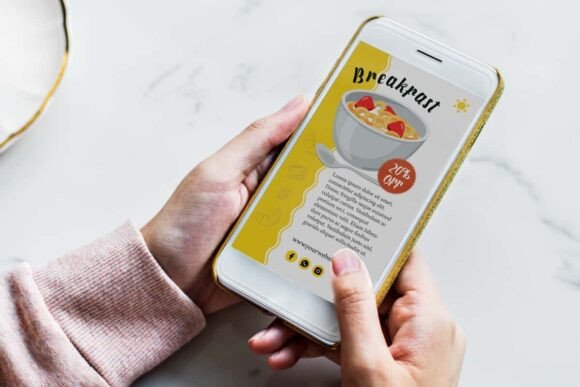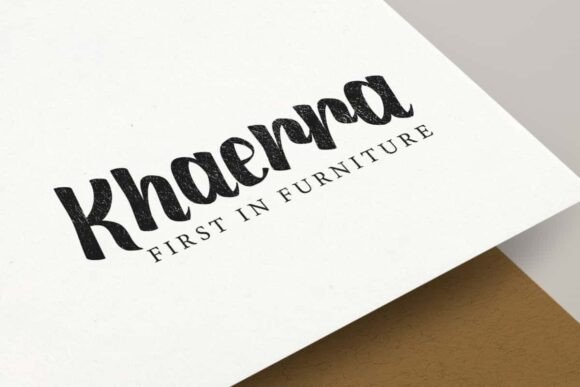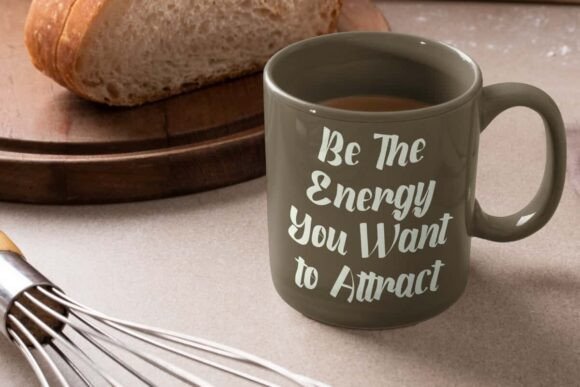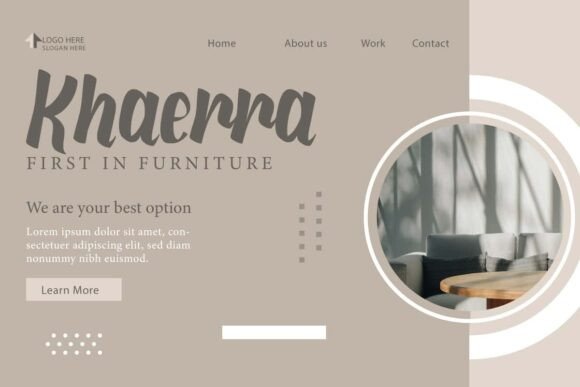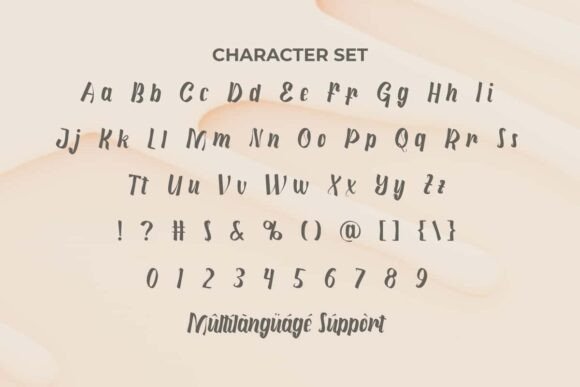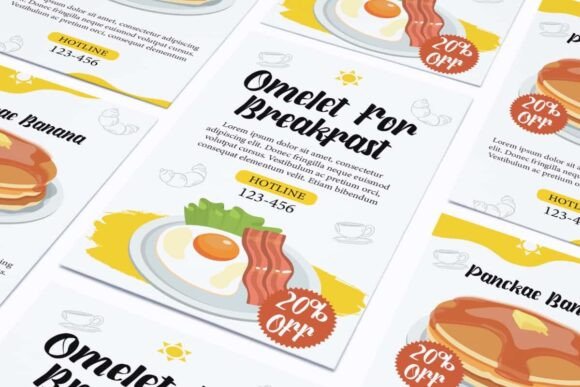
Cinnamon Butter Font: The Sweetest Addition to Your Design Collection
Are you tired of using the same old fonts in your designs? Look no further! Cinnamon Butter Font is a deliciously beautiful calligraphic font that is sure to add a touch of warmth and personality to any project. Created by CalligraphyFonts.Net, this modern calligraphy font is perfect for designers and crafters looking to make their designs stand out.
The Inspiration Behind Cinnamon Butter Font
The story behind Cinnamon Butter Font is as sweet as the font itself. According to the creators, the font was originally inspired by a sudden craving for something delicious. Who hasn’t been there, right? The result is a font that is both appetizing and aesthetically pleasing. The bold characters and flowing lines of Cinnamon Butter Font are sure to evoke feelings of warmth and comfort, making it perfect for a wide range of design applications.
What Makes Cinnamon Butter Font So Special?
So, what sets Cinnamon Butter Font apart from other fonts out there? For starters, its unique calligraphic style is both modern and elegant. The bold characters are perfect for making a statement, while the flowing lines add a touch of sophistication. Whether you’re designing a logo, creating a marketing material, or crafting a custom invitation, Cinnamon Butter Font is sure to add a touch of personality to your design.
One of the best things about Cinnamon Butter Font is its versatility. This font can be used for a wide range of design applications, including:
- Brand logos: Make a statement with a bold and eye-catching logo that sets your brand apart.
- Custom designs: Add a touch of personality to your custom designs, whether it’s a greeting card, a poster, or a flyer.
- Invitations: Create beautiful and elegant invitations for weddings, parties, and other special events.
- Labels: Add a touch of sophistication to your product labels or packaging.
- Marketing materials: Make your marketing materials stand out with a bold and eye-catching font.
- Menu boards: Add a touch of warmth and personality to your menu boards.
- Packaging: Create beautiful and eye-catching packaging that sets your product apart.
- Quotes: Add a touch of elegance to your quotes and social media posts.
- Screen print: Create beautiful and bold screen prints for your designs.
- Websites: Add a touch of personality to your website with a unique and eye-catching font.
Why Designers and Crafters Love Cinnamon Butter Font
Designers and crafters love Cinnamon Butter Font for many reasons. Here are just a few:
- Easy to read: Despite its bold and flowing lines, Cinnamon Butter Font is easy to read, making it perfect for a wide range of design applications.
- Highly versatile: Whether you’re designing a logo, creating a marketing material, or crafting a custom invitation, Cinnamon Butter Font is sure to fit the bill.
- Unique and eye-catching: This font is sure to make your designs stand out from the crowd.
- Perfect for branding: Cinnamon Butter Font is perfect for creating a consistent brand identity.
If you’re ready to add a touch of warmth and personality to your designs, be sure to check out Cinnamon Butter Font. This deliciously beautiful calligraphic font is sure to become a staple in your design collection. With its bold characters, flowing lines, and highly versatile design, Cinnamon Butter Font is perfect for designers and crafters of all levels.
In conclusion, Cinnamon Butter Font is a must-have for any designer or crafter looking to add a touch of personality to their designs. With its unique calligraphic style, bold characters, and highly versatile design, this font is sure to make your designs stand out. Whether you’re creating a logo, crafting a custom invitation, or designing a marketing material, Cinnamon Butter Font is the perfect choice. So why wait? Get your hands on Cinnamon Butter Font today and start creating designs that are as sweet as they are beautiful!